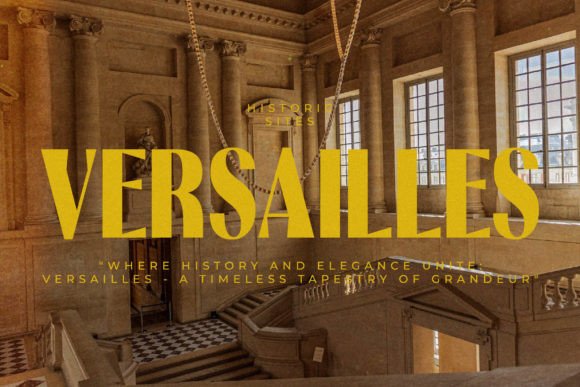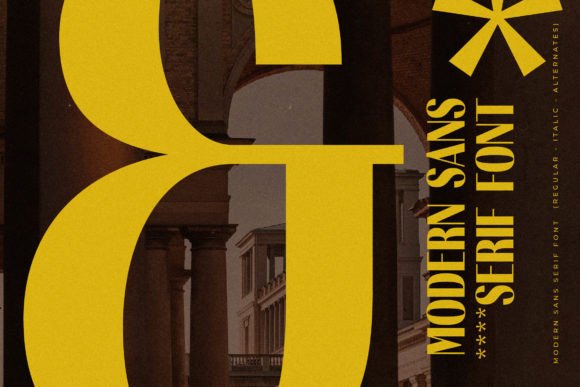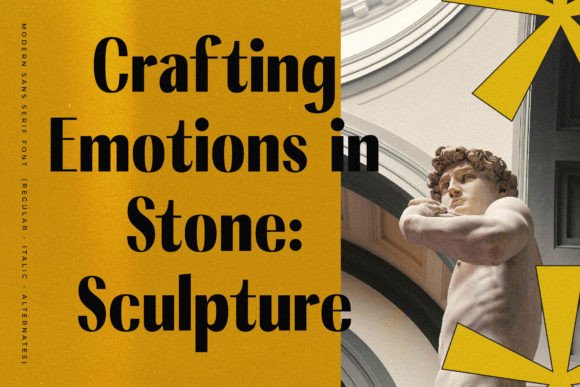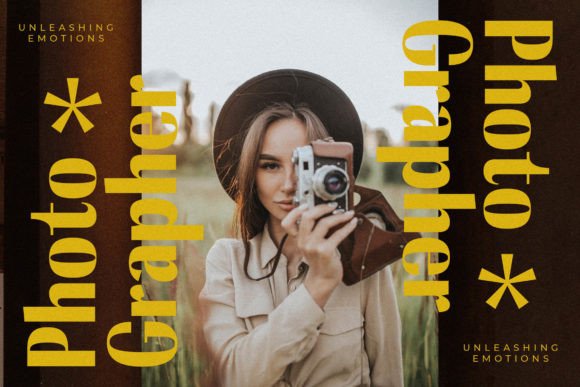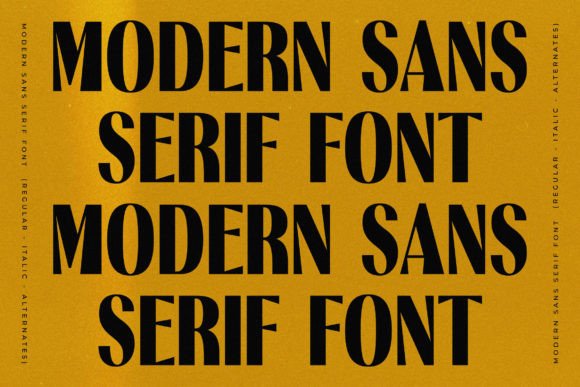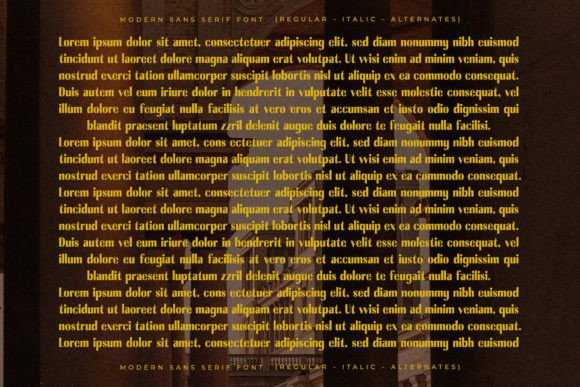
Introduction to Merolkins Font
Merolkins is an elegant serif font, that features a very delicate and classy look.
Not too thin and not too thick, balanced and varied, Florania was designed to enhance the beauty of your projects This typeface is perfect for an elegant & luxury logo, book or movie title design, fashion brand, magazine, clothes, lettering, quotes, and so much more.
Key Features of Merolkins Font
Why Choose Merolkins Font?